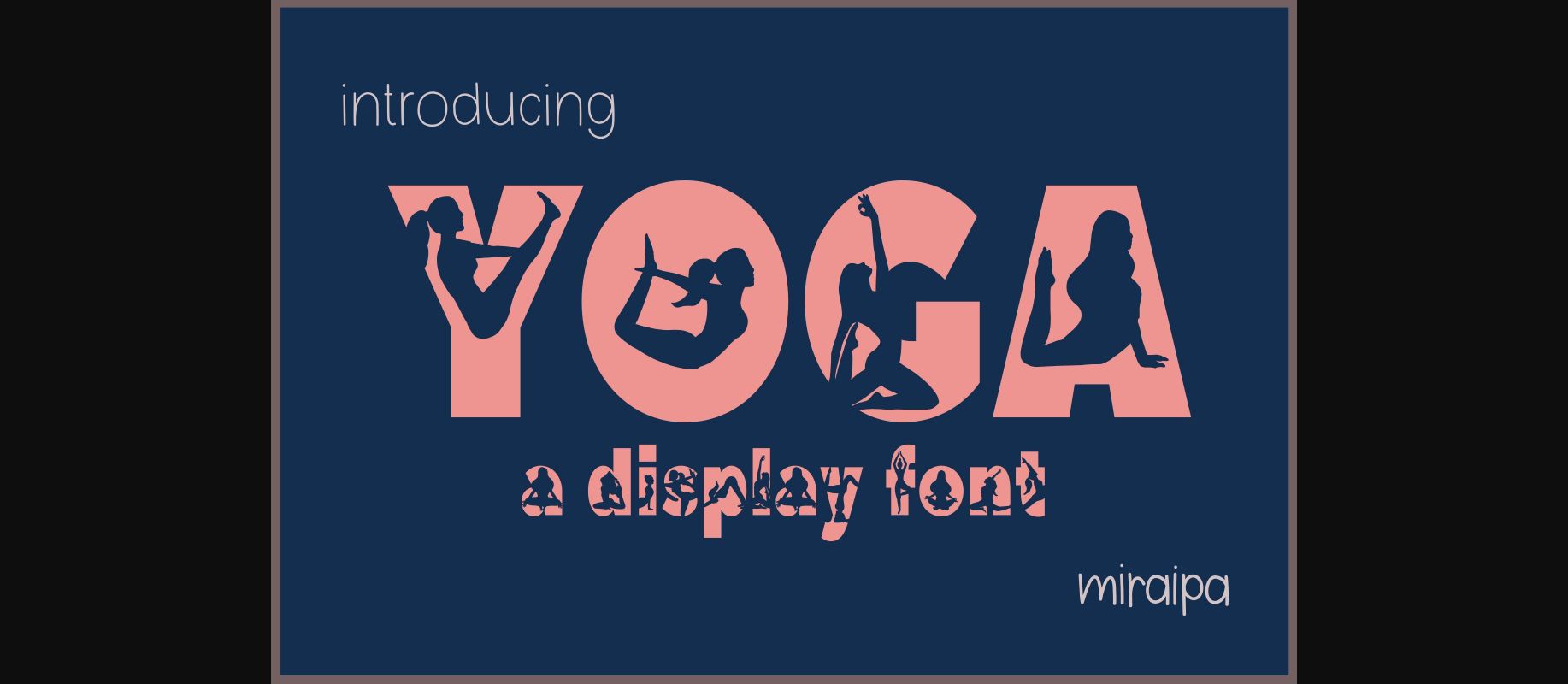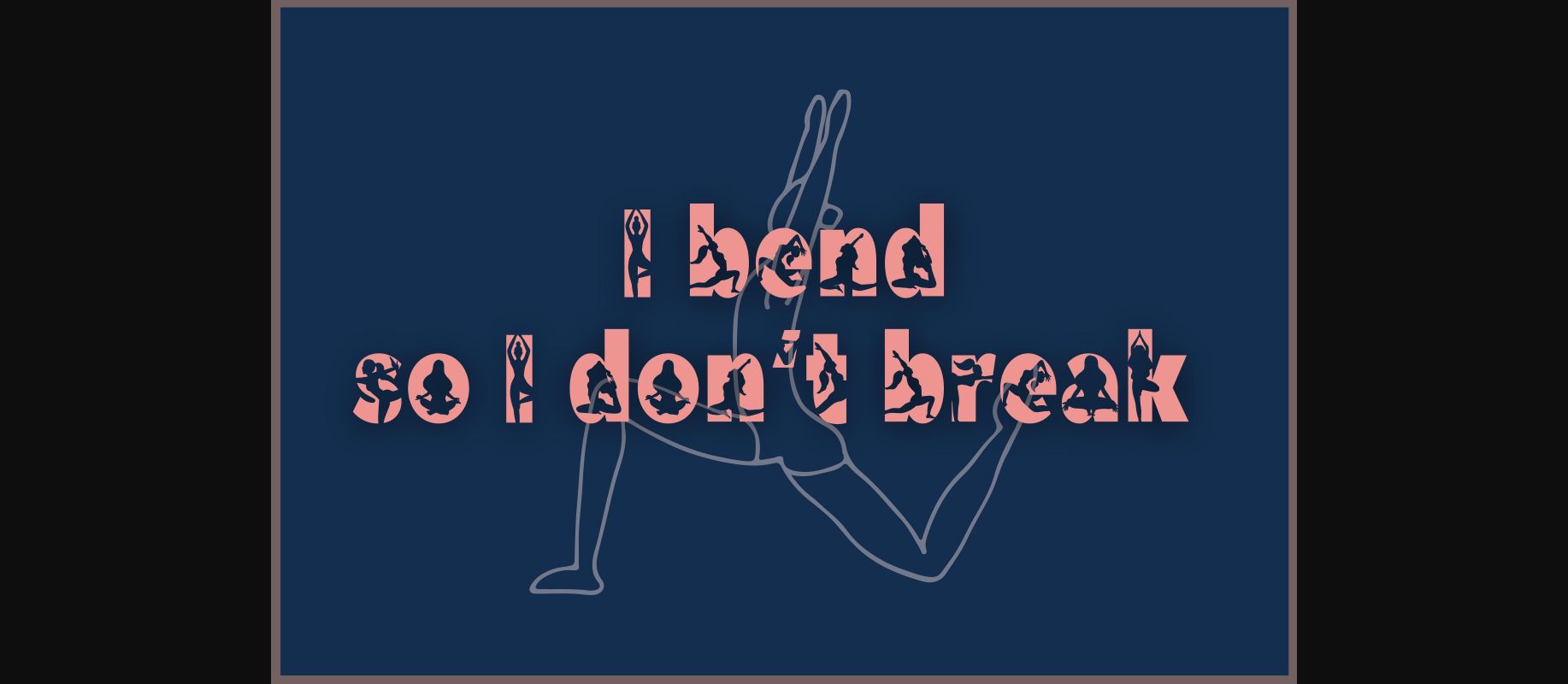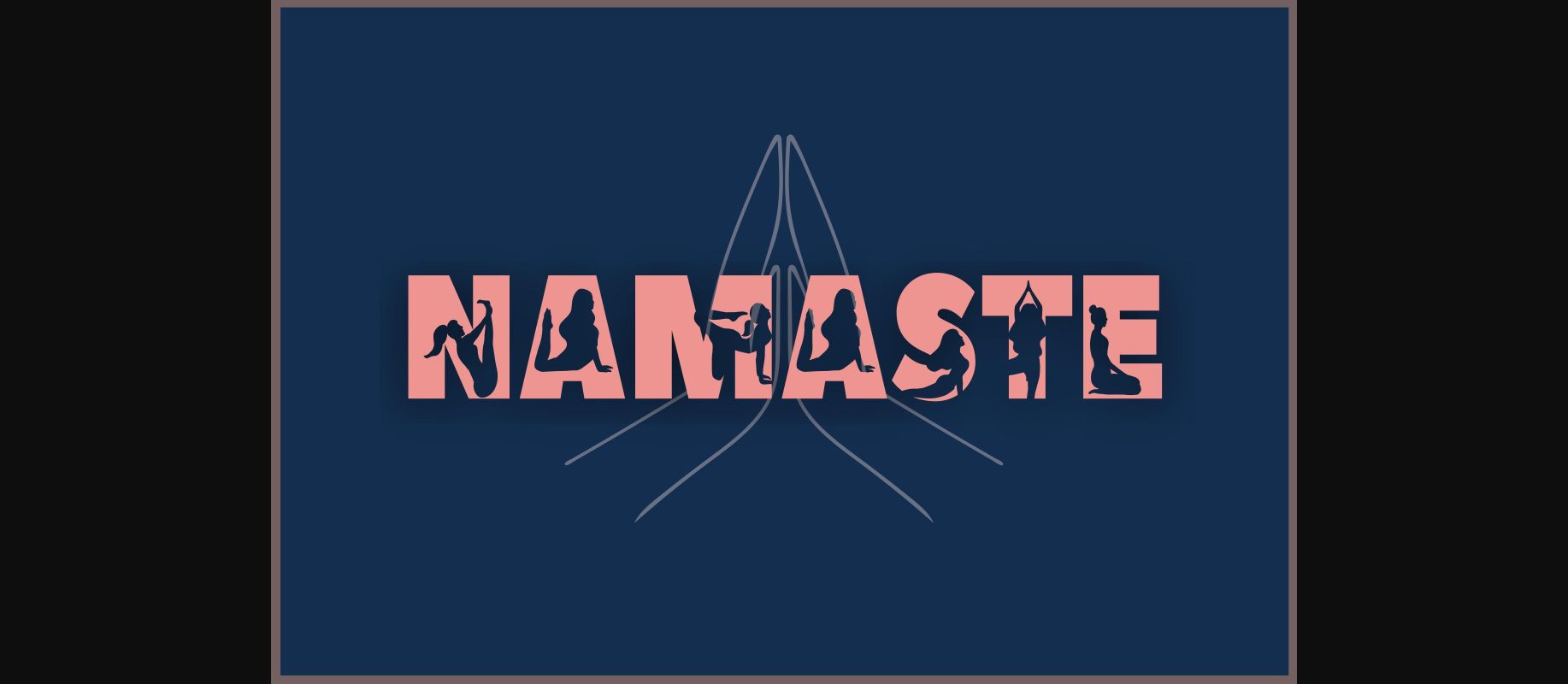
Yoga Font
About Yoga Font
Yoga is a trendy and unique decorative font specially crafted to make your projects more interesting! Add it to your fonts library, and it will become an instant favorite!